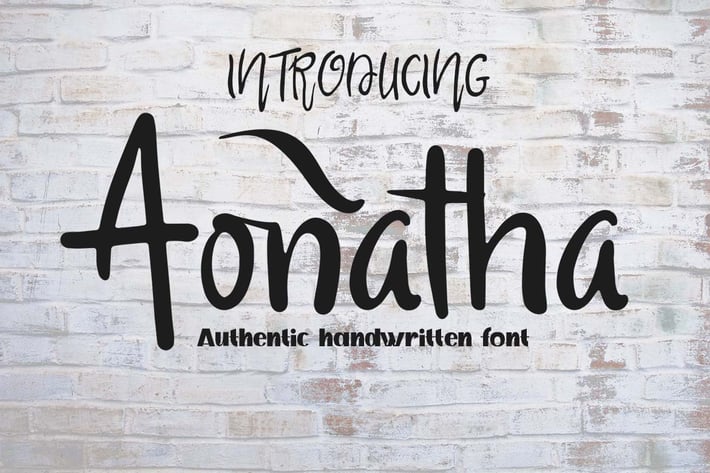
Aonatha - Handwritten font
ivan_artnivora
Introducing Aonatha, an elegant, luxury, and beauty serif font. Its unique and lovely feel.
So perfect for you who needs a typeface for logo designs, magazine, social media, brochure, and many more.
+ Uppercase
+ Lowercase
+ Numerals
+ Punctuation